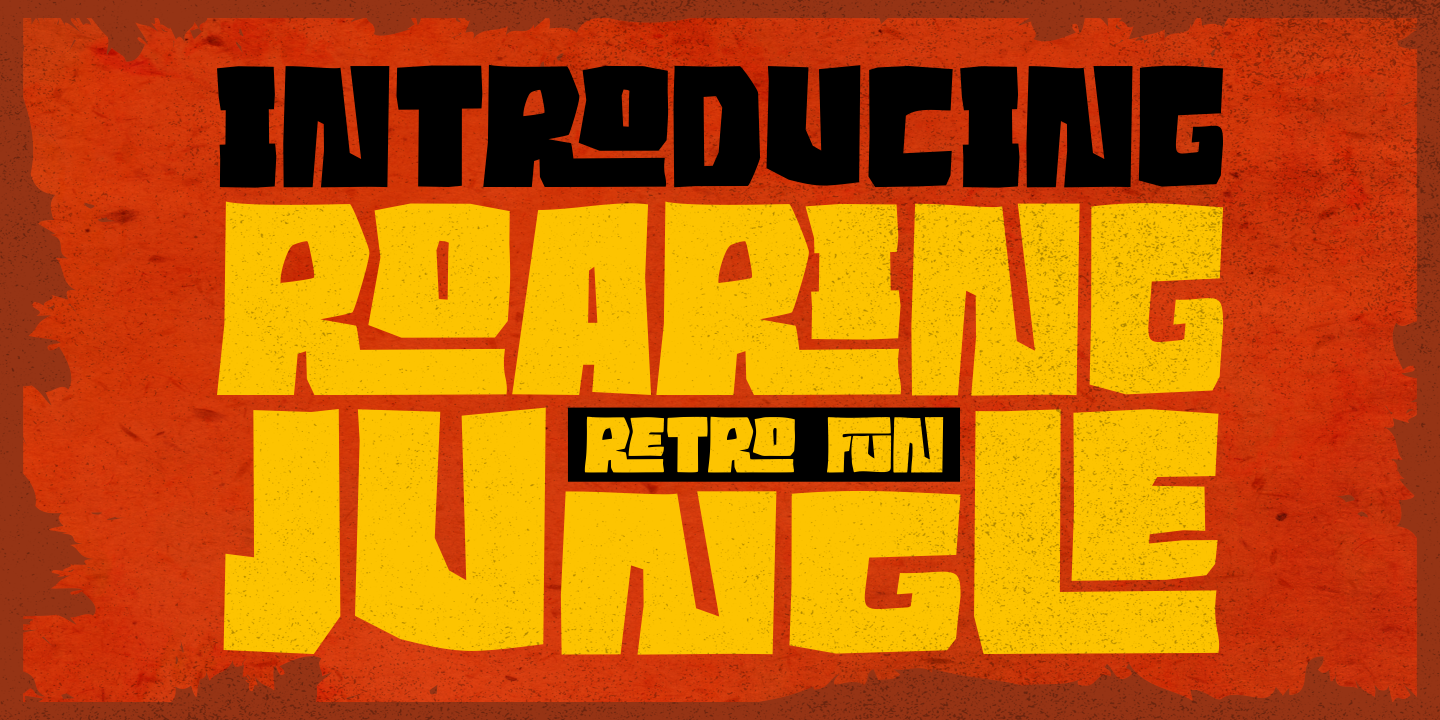
Roaring Jungle Font Free Download is a bold, wild display typeface inspired by the untamed beauty of the jungle. Perfect for adventure-themed posters, children’s books, event promotions, packaging, logos, and playful branding, this font brings energy and excitement to any creative project. With its organic, hand-drawn letterforms, Roaring Jungle Font captures the spirit of nature, making your designs feel lively and dynamic.
With Roaring Jungle Font Free Download, you’ll receive a complete set of uppercase letters, numbers, and essential punctuation, offering versatility for both print and digital applications. Whether you’re creating signage for a zoo, merchandise for an outdoor brand, or fun graphics for a jungle-themed event, this font delivers readability while adding wild character to your work.
Add adventure and boldness to your creative projects with Roaring Jungle Font Free Download. Its playful, natural style makes it a standout choice for designs that need energy, fun, and a touch of the wild.